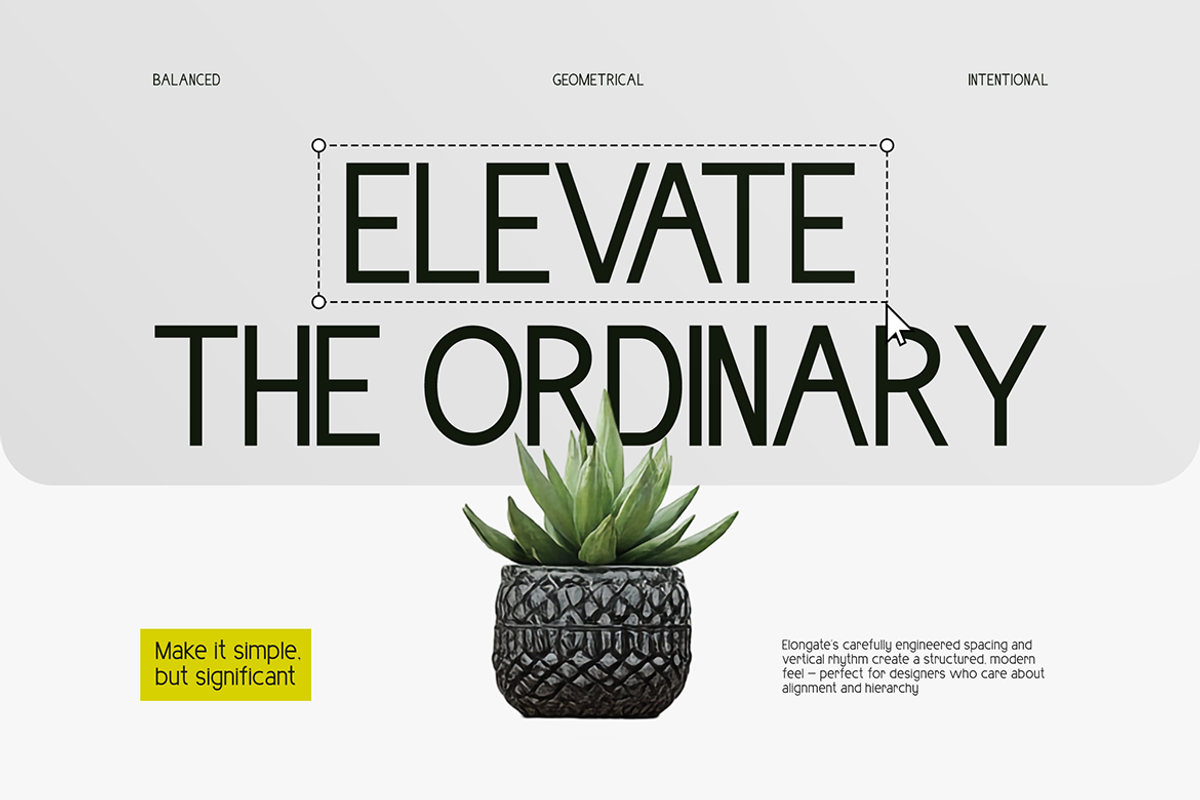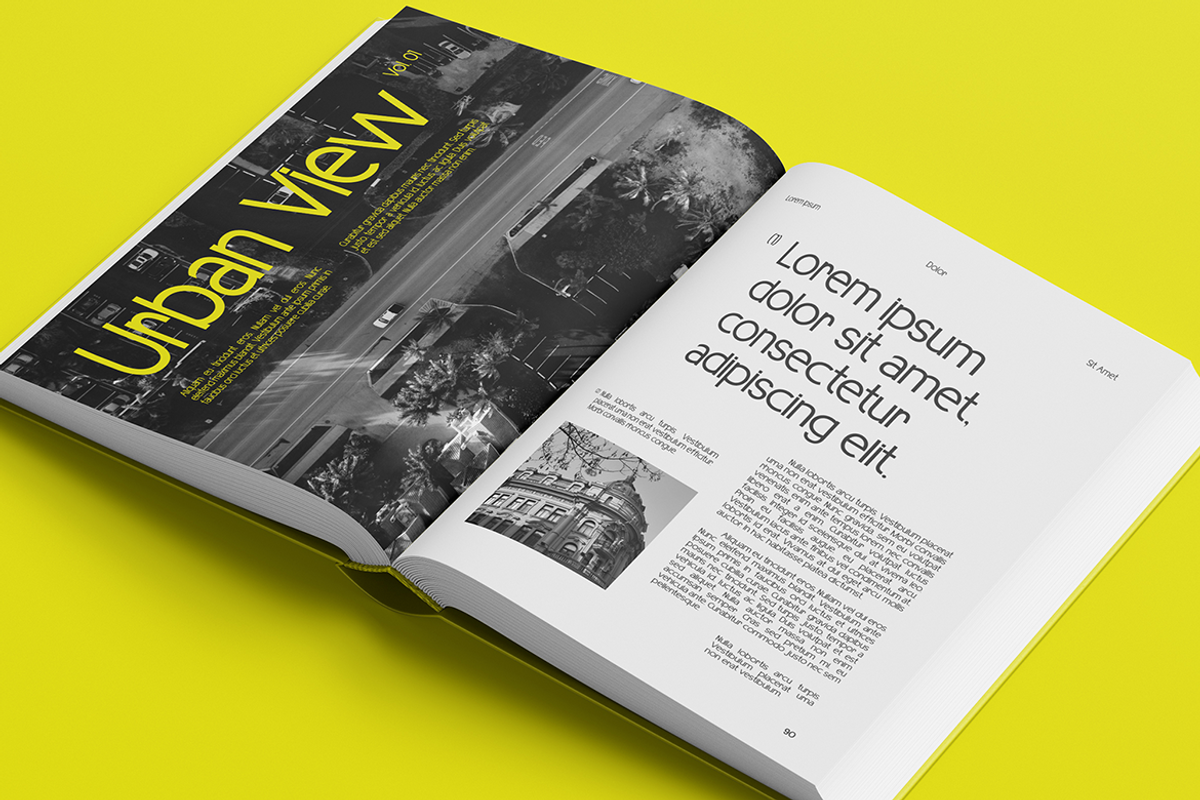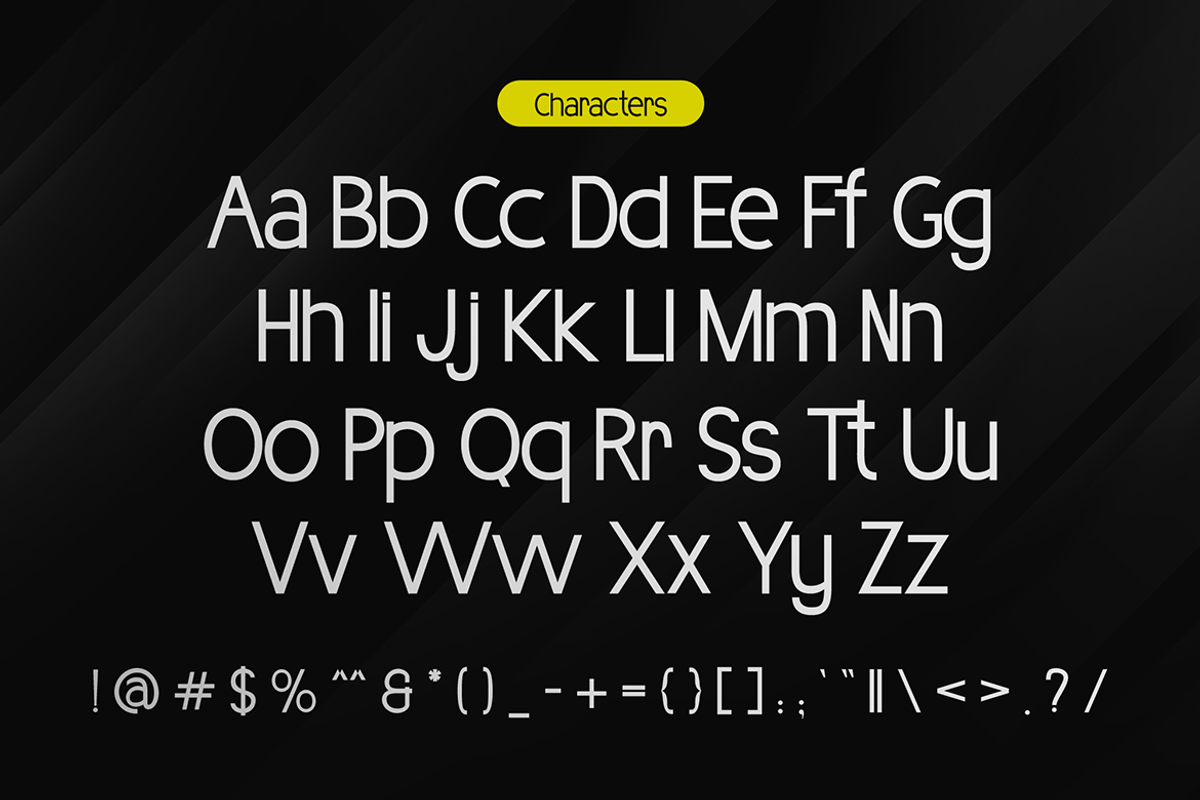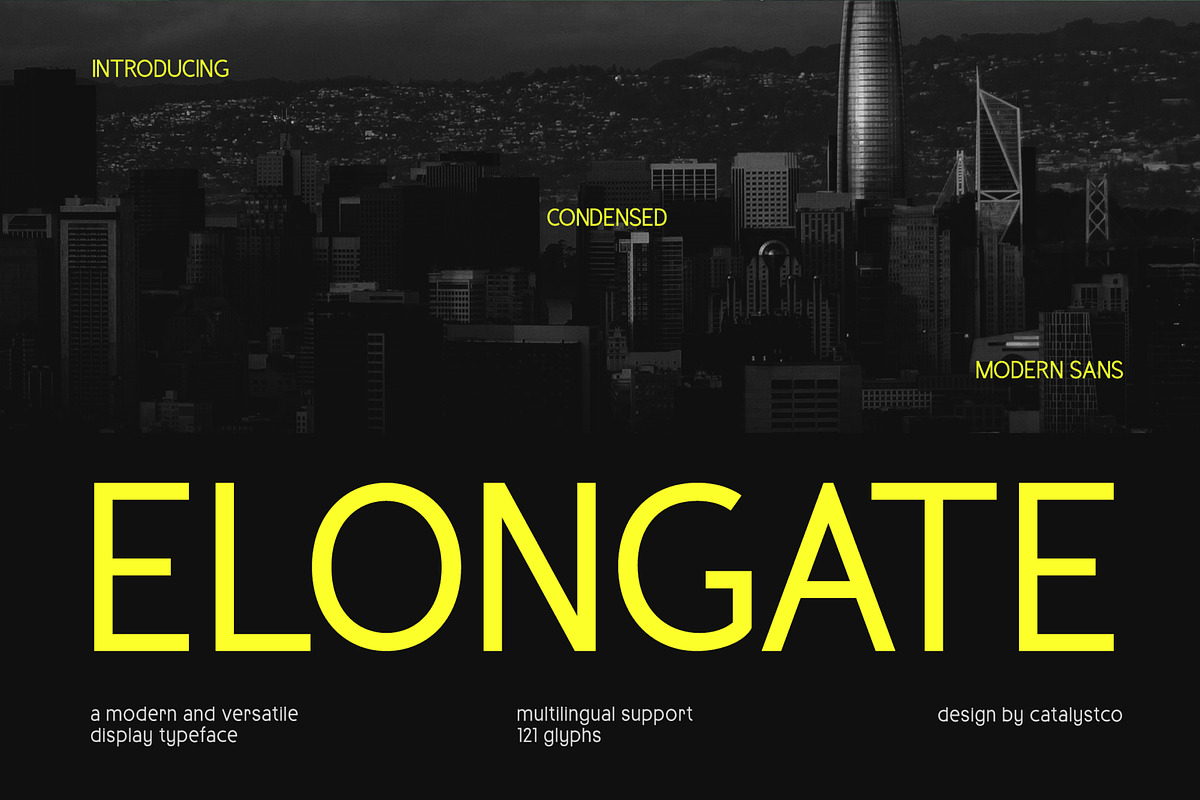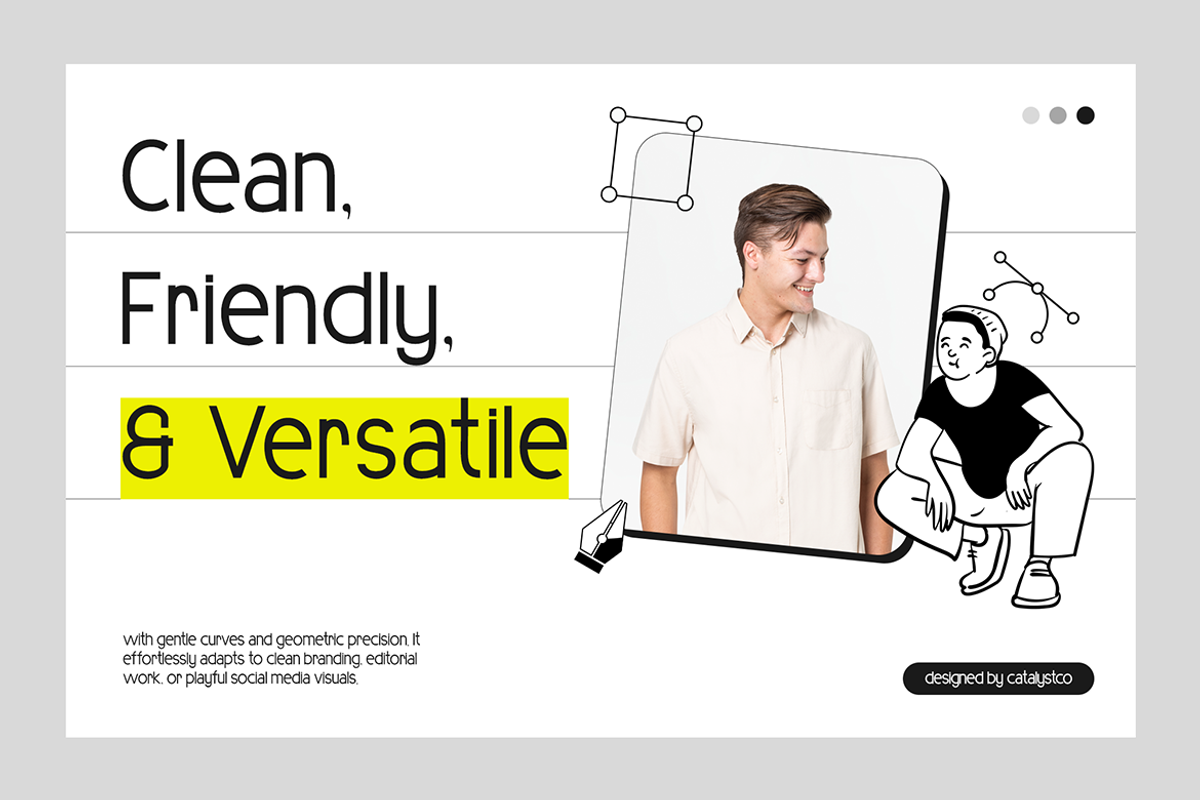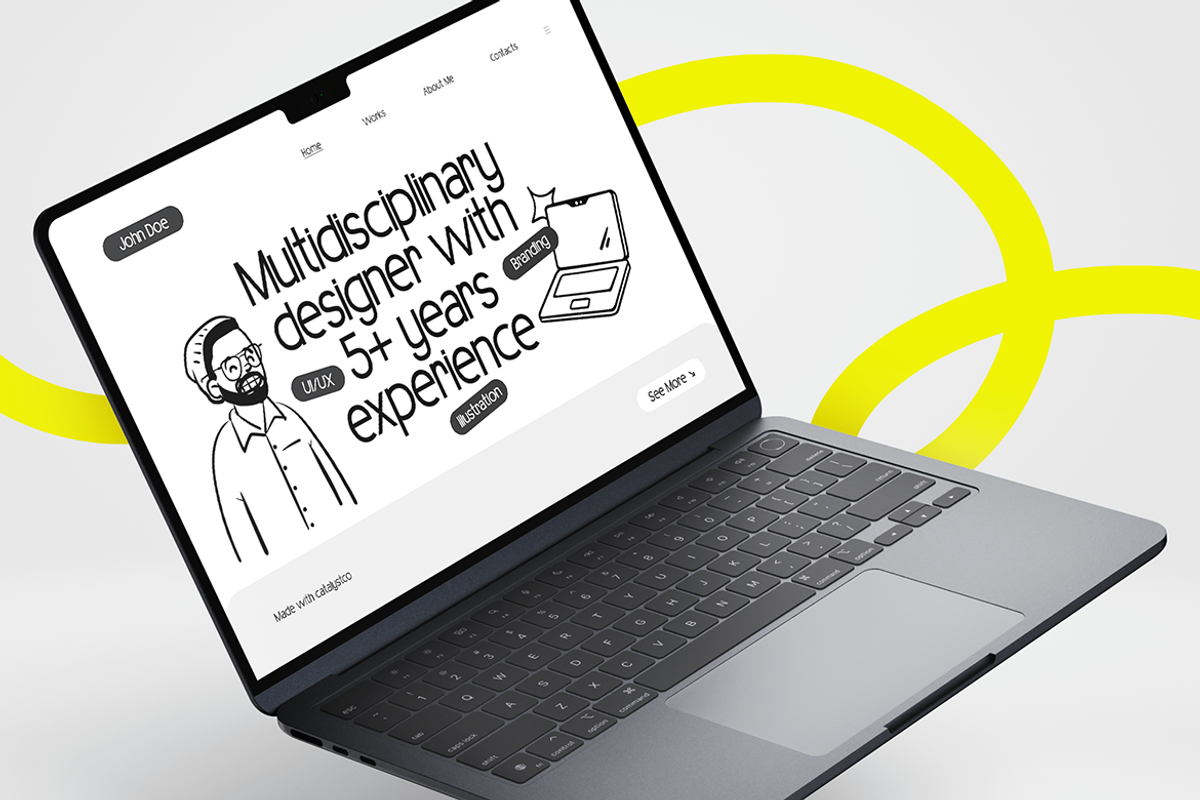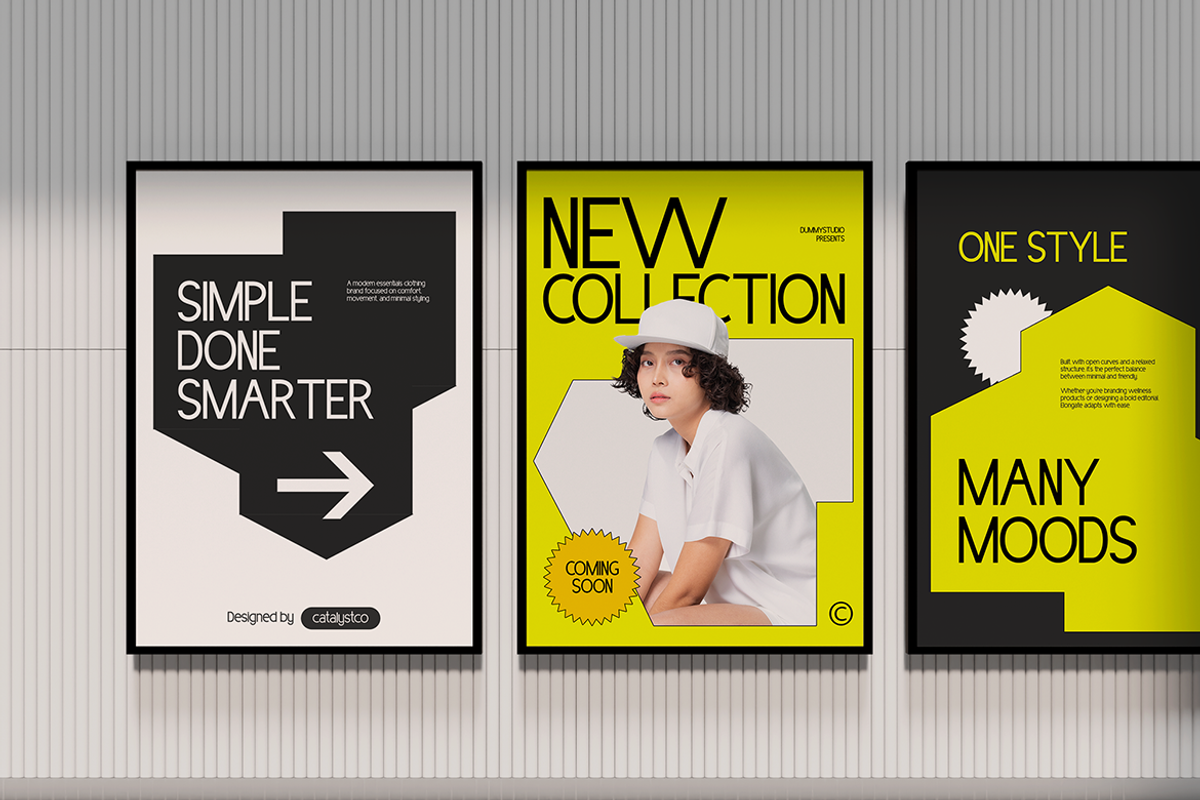
Elongate – Modern Condensed Sans
Elongate is a modern condensed sans serif typeface designed to make a bold statement. With its sleek lines and extended letterforms, it combines strong visual presence with exceptional legibility. Elongate is the ideal choice for projects requiring a contemporary look with dynamic character, providing a perfect balance between style and clarity.
Its versatility shines in both digital and print media, especially for high-impact designs such as branding, headlines, posters, and more. Whether you're working on tech, fashion, or advertising, Elongate’s clean yet powerful design ensures your message is communicated effectively.
Why Designers Love It:
Bold and Impactful: The condensed style allows for high-impact headlines and displays while maintaining clarity.
Modern and Sleek: With its contemporary design, Elongate enhances any project with a fresh and sophisticated look.
Highly Versatile: Great for a wide range of design projects from branding to posters to digital media.
Readable and Stylish: The extended letterforms ensure excellent legibility without compromising on style.
Highlights / What’s Included:
Uppercase and lowercase letters
Numerals and punctuation
Clean, modern design perfect for a variety of applications
Best Use Cases:
Bold branding and identity projects
Advertising campaigns and posters
Website headers and banners
High-impact headlines and titles
Editorial layouts and magazine covers
Product packaging and labels
Digital media and social media graphics
Elongate is the perfect typeface for anyone seeking a modern, bold, and highly readable font that still exudes style and character. Use Elongate in your next design to make a statement with its clean, contemporary aesthetic.